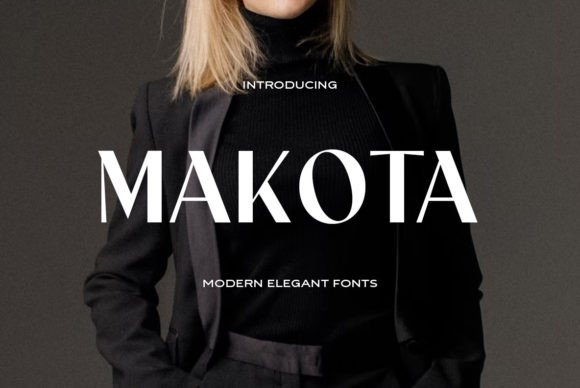
Introducing the Makota Font - a modern, sans serif font created by the talented yukitacreative. This font family boasts tall and elegant characters, making it the perfect choice for luxury-related design projects.
If you're looking to elevate your branding and advertising efforts, the Makota Font is a must-have in your toolkit. With its high legibility, it's also a great choice for use on websites, advertisements, and other communication materials.
Impress your audience with the sleek and sophisticated look of the Makota Font. Whether you're designing a logo, creating a product label, or crafting an eye-catching social media post, this font is sure to make your project stand out.
Why settle for a basic font when you can make a statement with Makota? This font is more than just a tool for communication - it's a symbol of elegance, class, and sophistication. Let Makota elevate your designs to new heights.